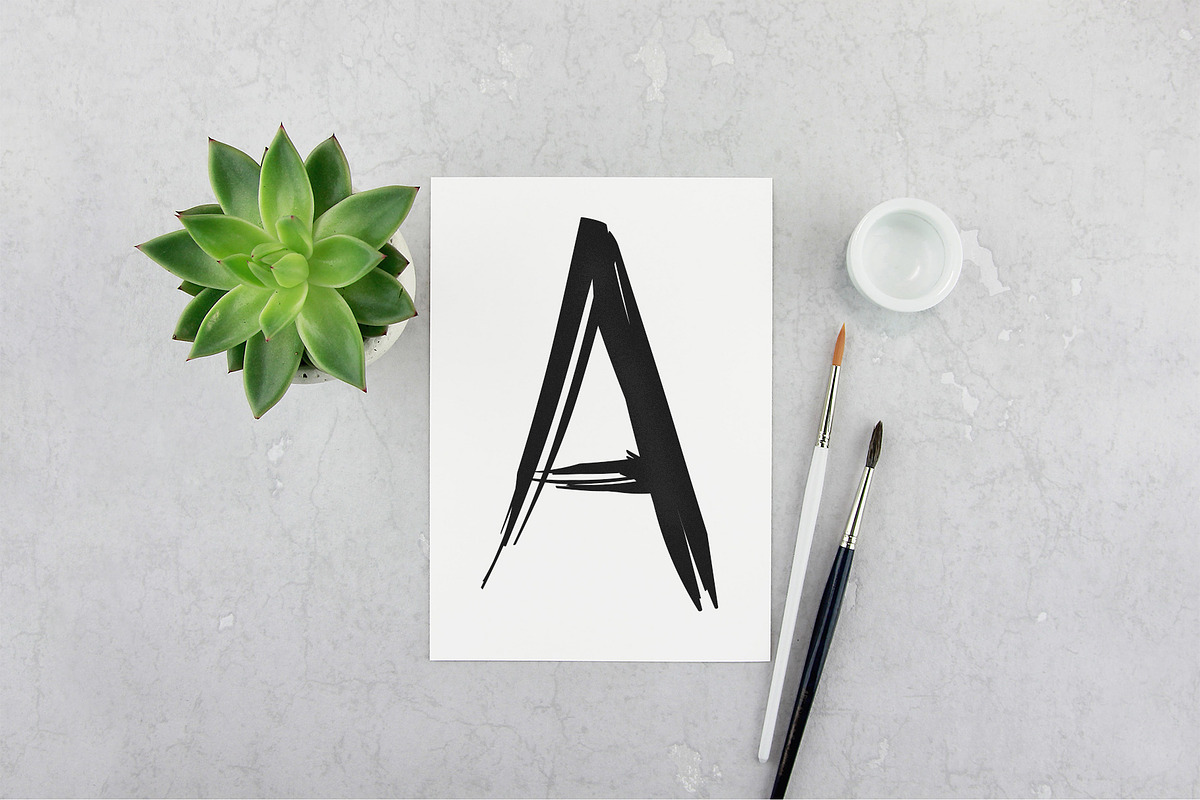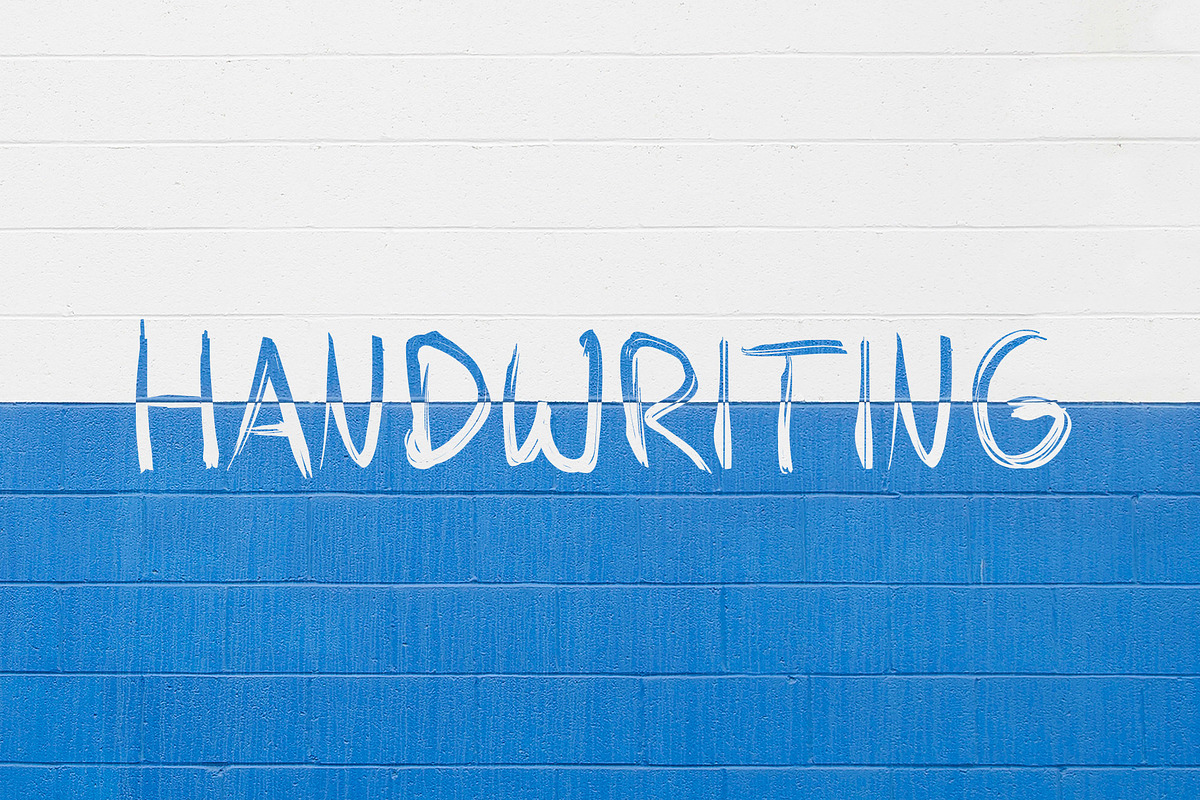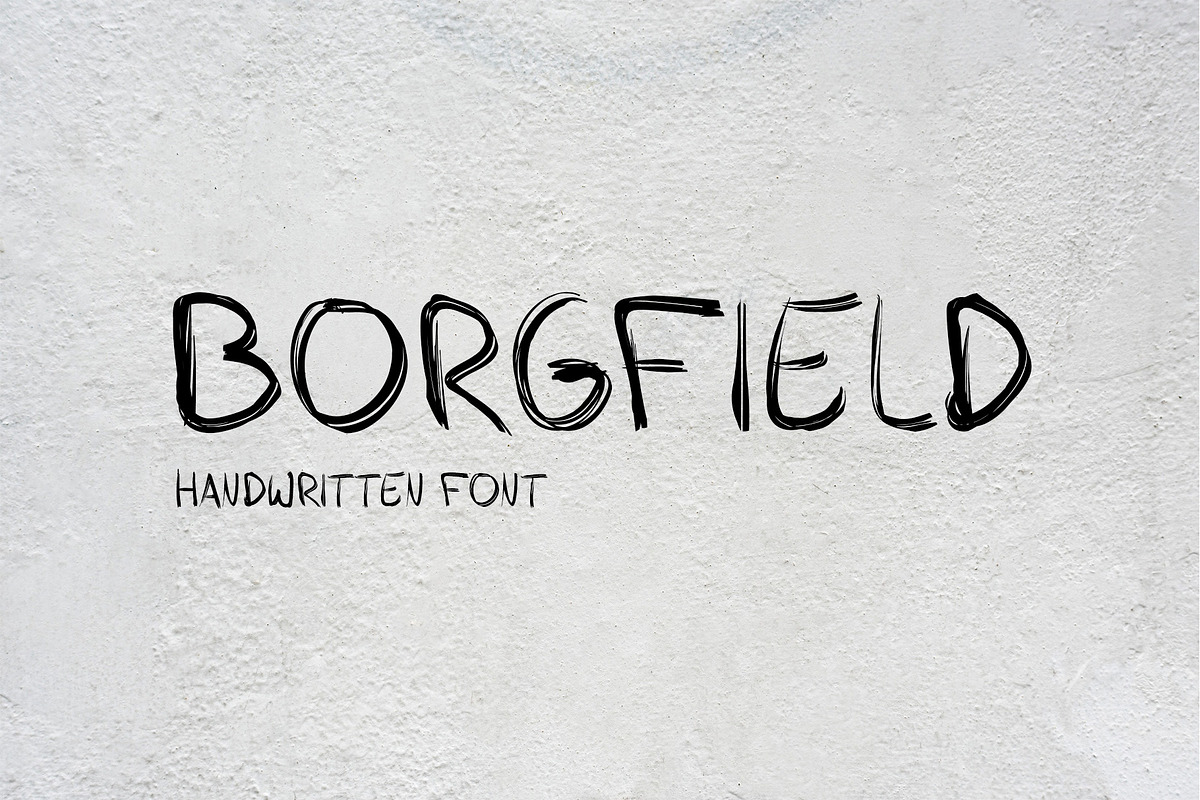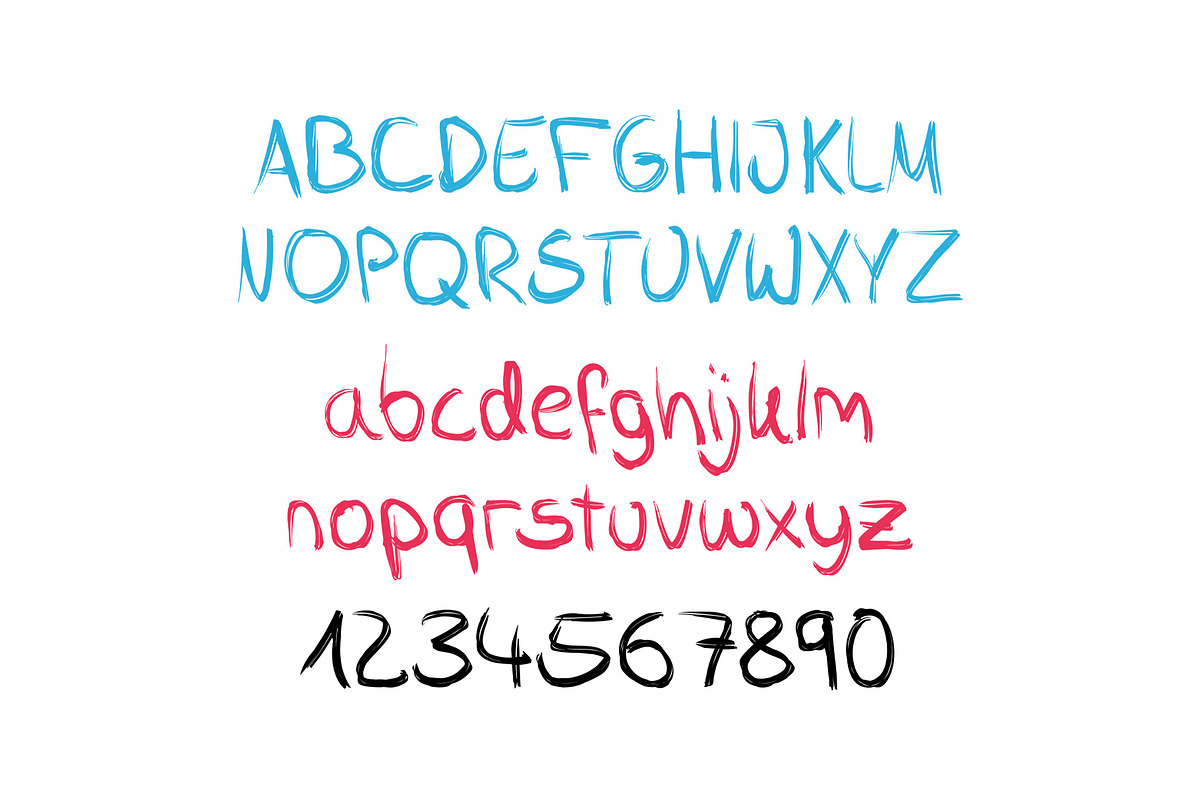
Borgfield | Handwritten Font
Borgfield is a handwritten script font that is carefully designed to suit your next creative project. It comes with uppercase letters, lowercase letters, numbers and punctuation.
- It comes with uppercase letters, lowercase letters, numbers and punctuation.
Borgfield | Handwritten Font by Designshot fits naturally into Branding, posters, packaging, typography.